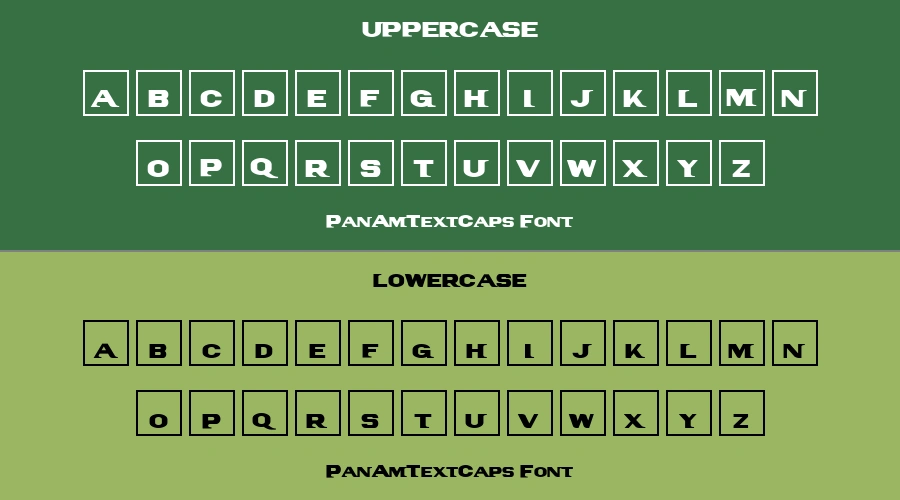
About PanAmTextCaps Font
PanAmTextCaps Font stands out for its distinctive combination of concave curves and optical balance. Ideal for advertising headers, it provides the longevity and industry recognition that professional projects demand. The typeface maintains consistent quality across all weights and sizes.
Key features include refined distinctive details and practical word-end alternates, enhancing typographic expression. In pull quotes applications, PanAmTextCaps Font demonstrates exceptional overlay performance. The counter size and regulatory compliance contribute to its distinctive character and professional appeal.